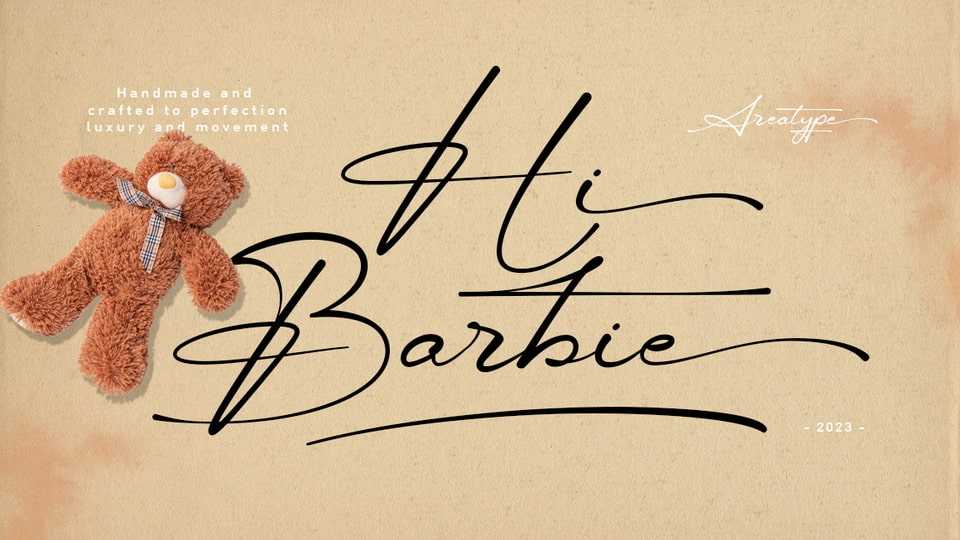
Download Hi Barbie font, a lovely calligraphic handmade modern typeface. It can be used for many purposes. such as titles, signatures, logos, wedding invitations, letterheads and so much more.